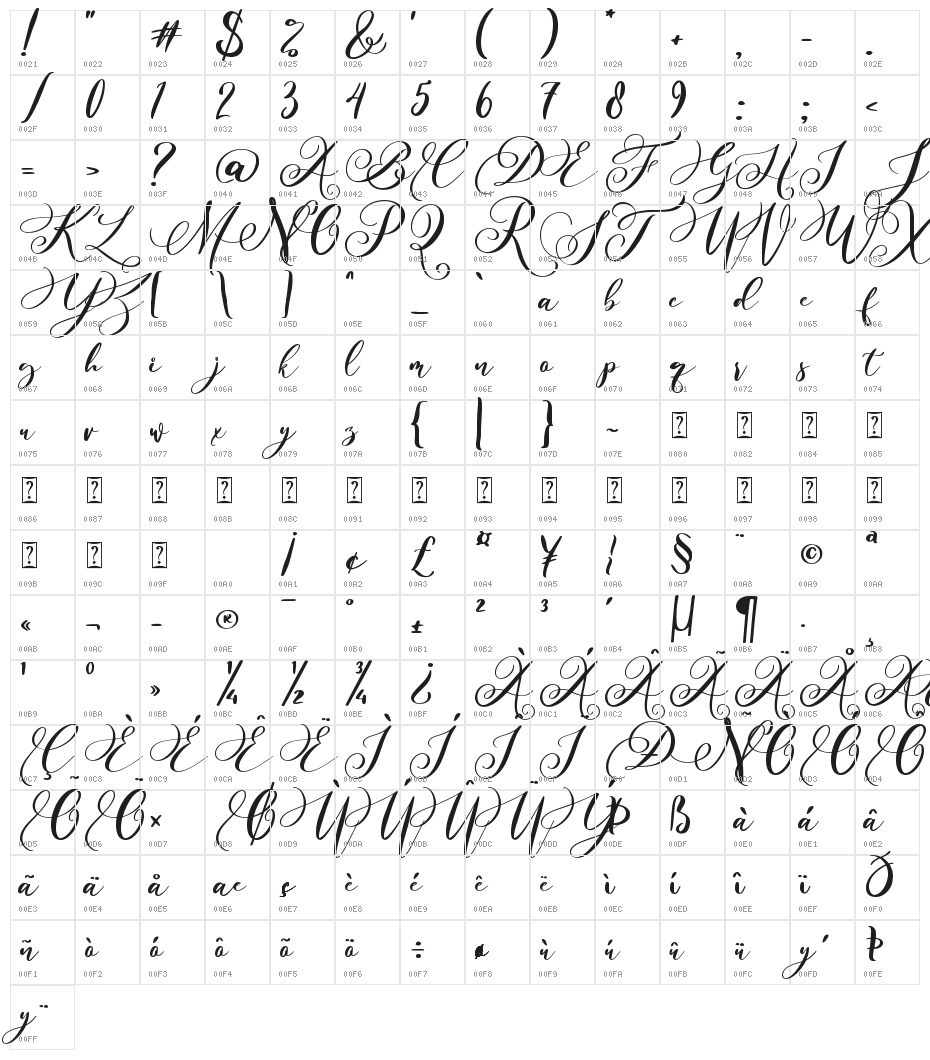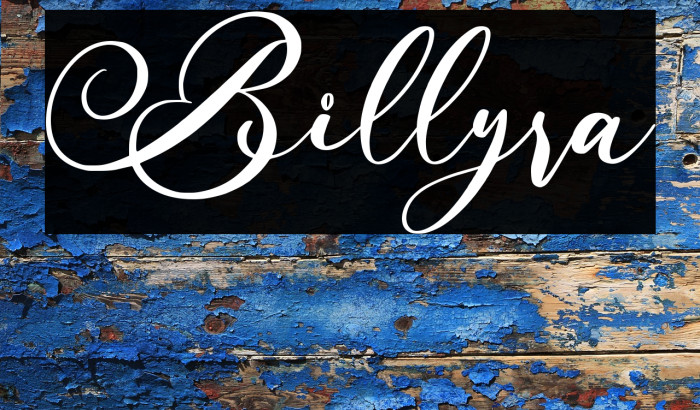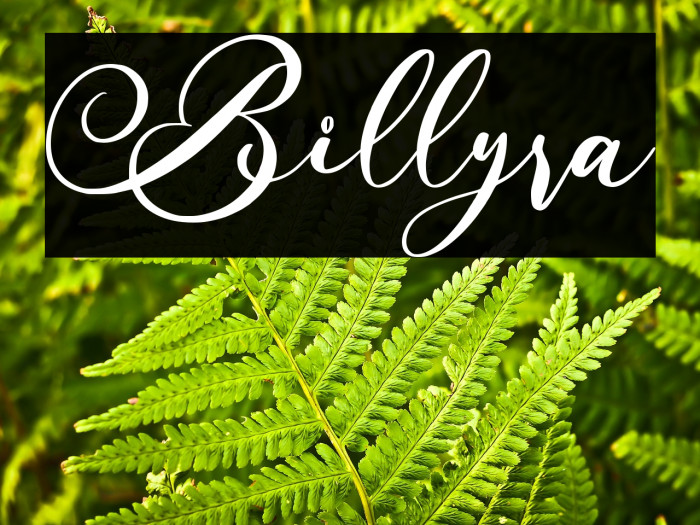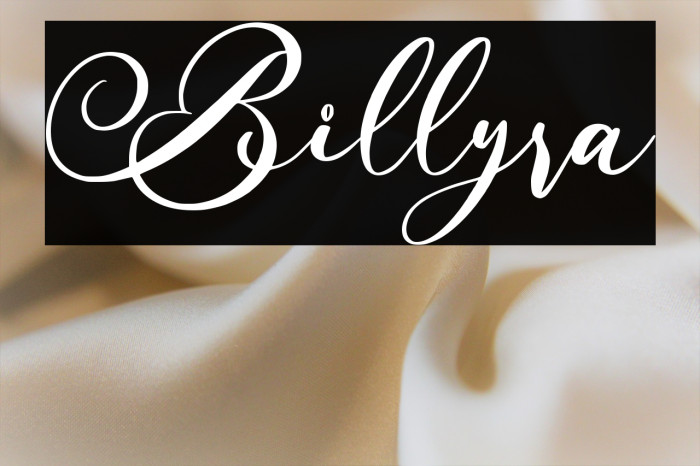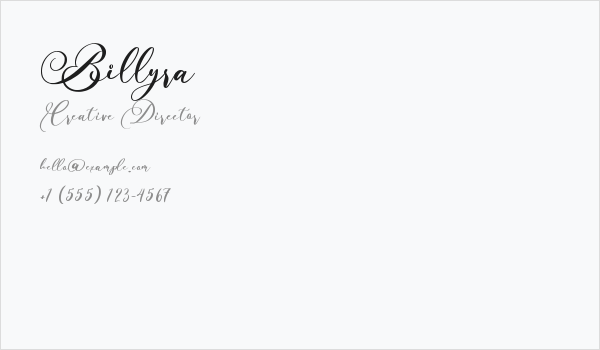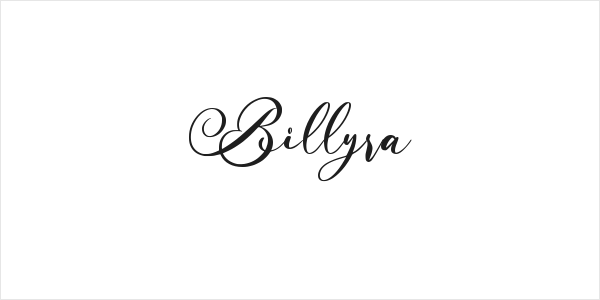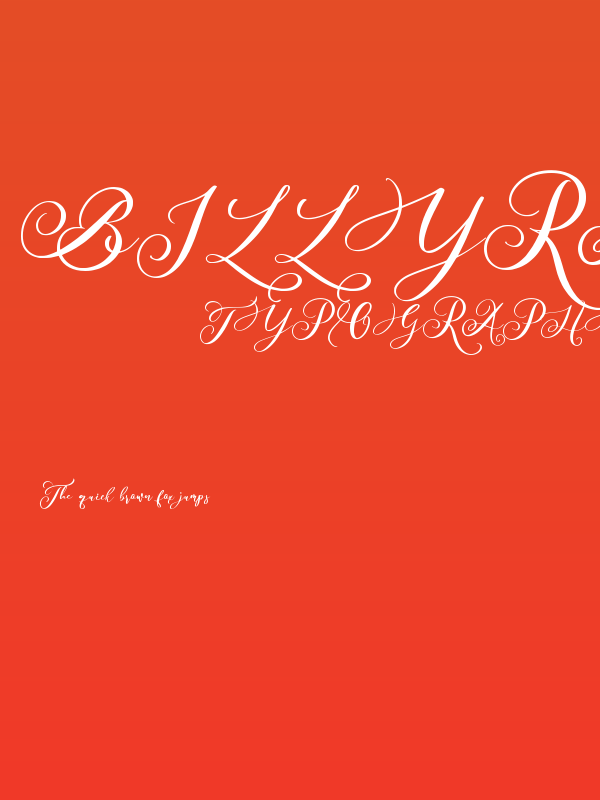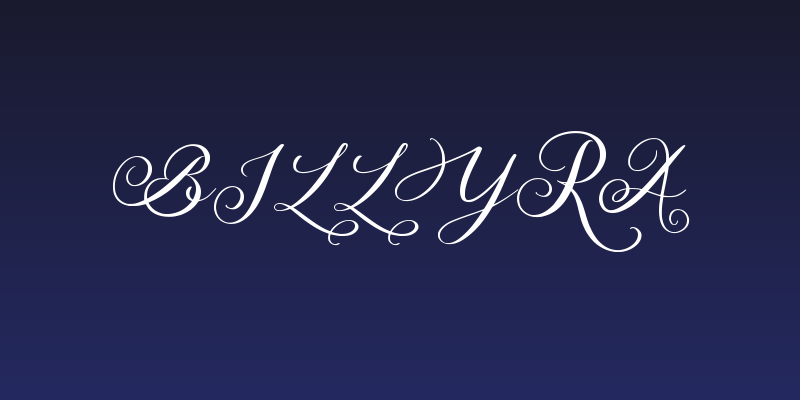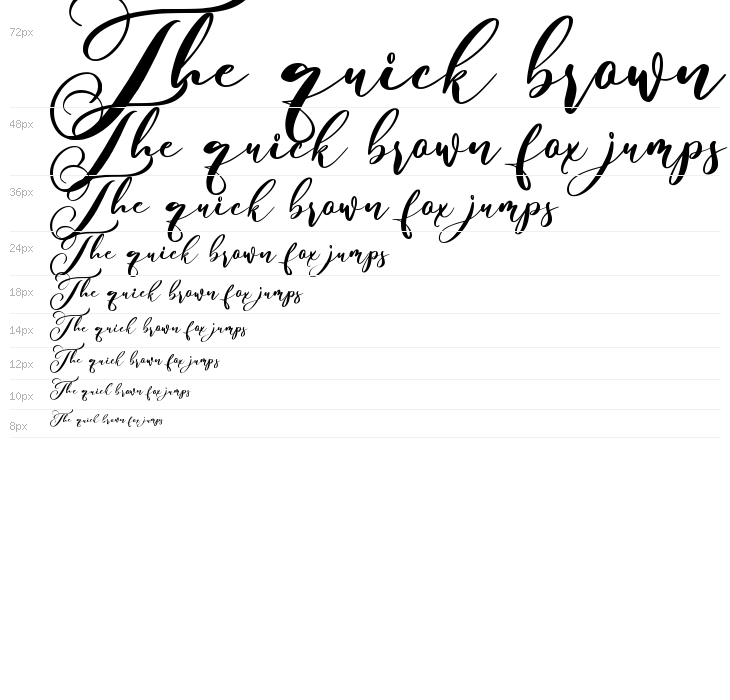
Billyra Font
Billyra Description
This elegant script font features a flowing, cursive style with intricate swirls and loops, particularly in the uppercase letters. The lowercase letters are bold and smooth, offering a striking contrast to the delicate uppercase. The numbers maintain the same fluidity and boldness, making them easily readable while retaining the font's artistic flair. Special characters are designed with the same attention to detail, ensuring consistency across all elements. This font exudes sophistication and charm, making it ideal for projects that require a touch of elegance.